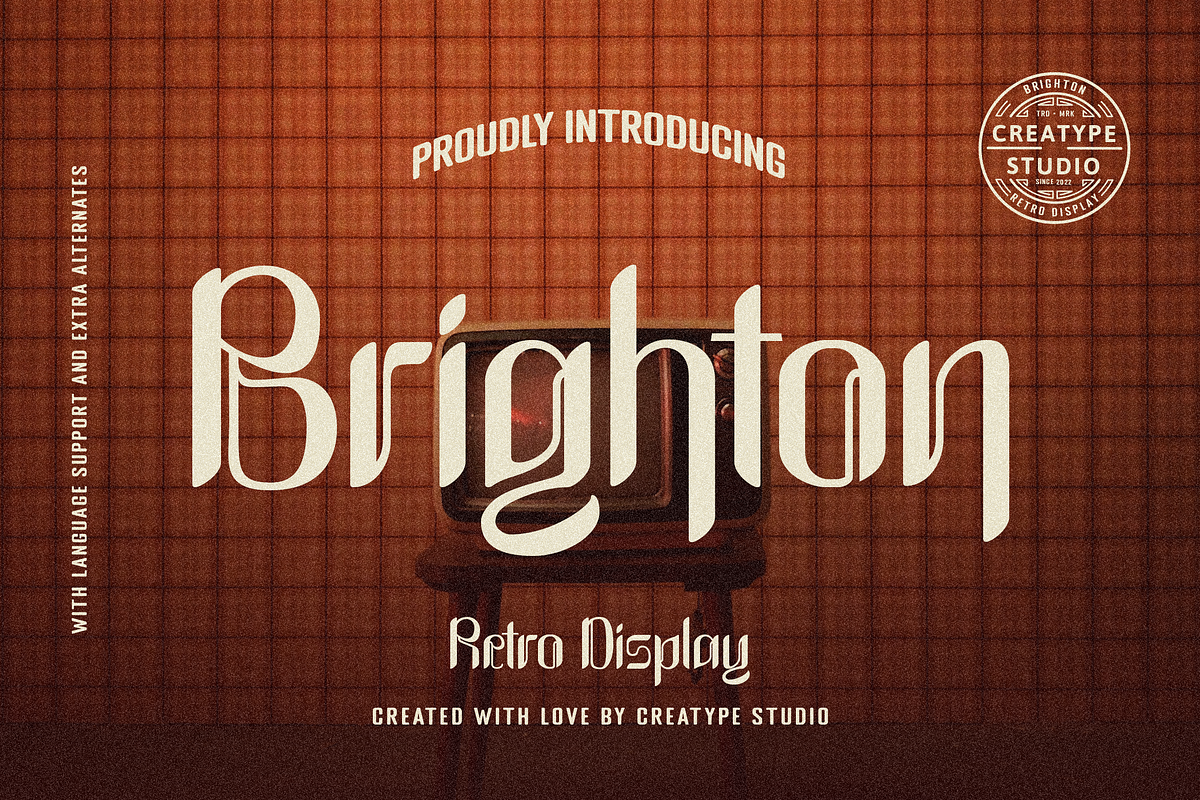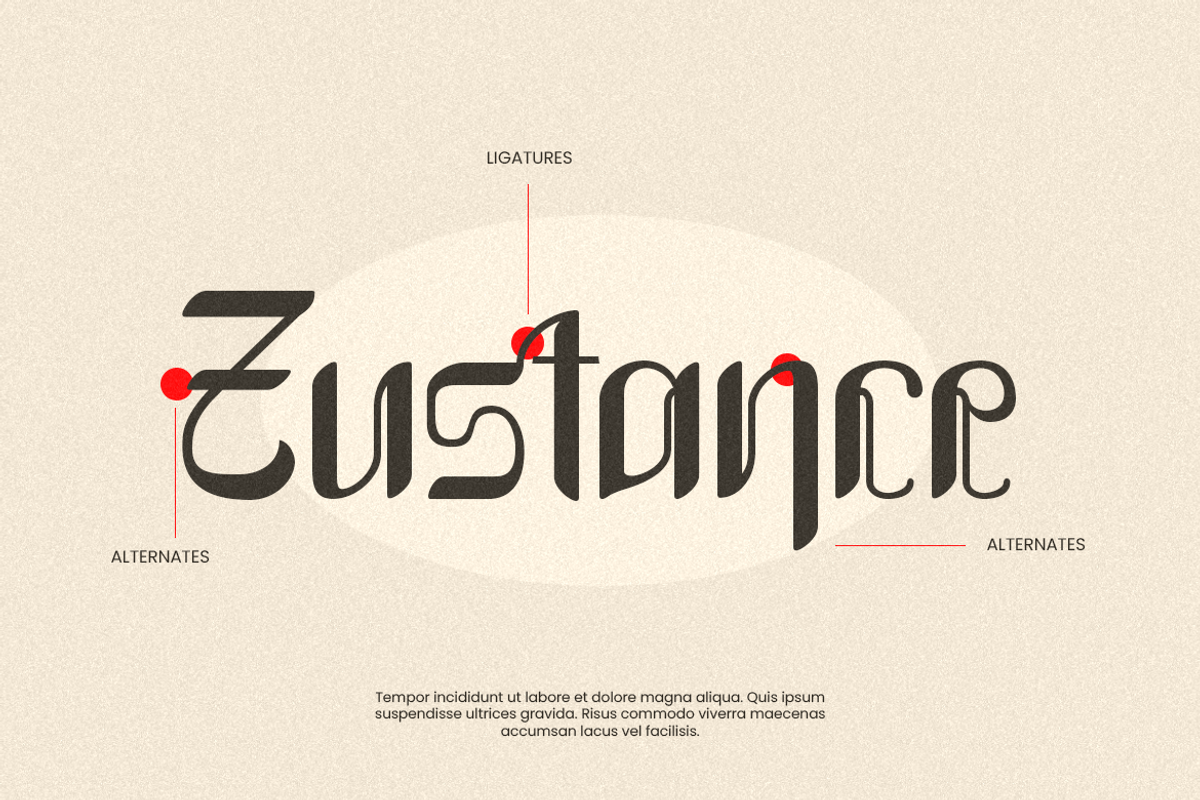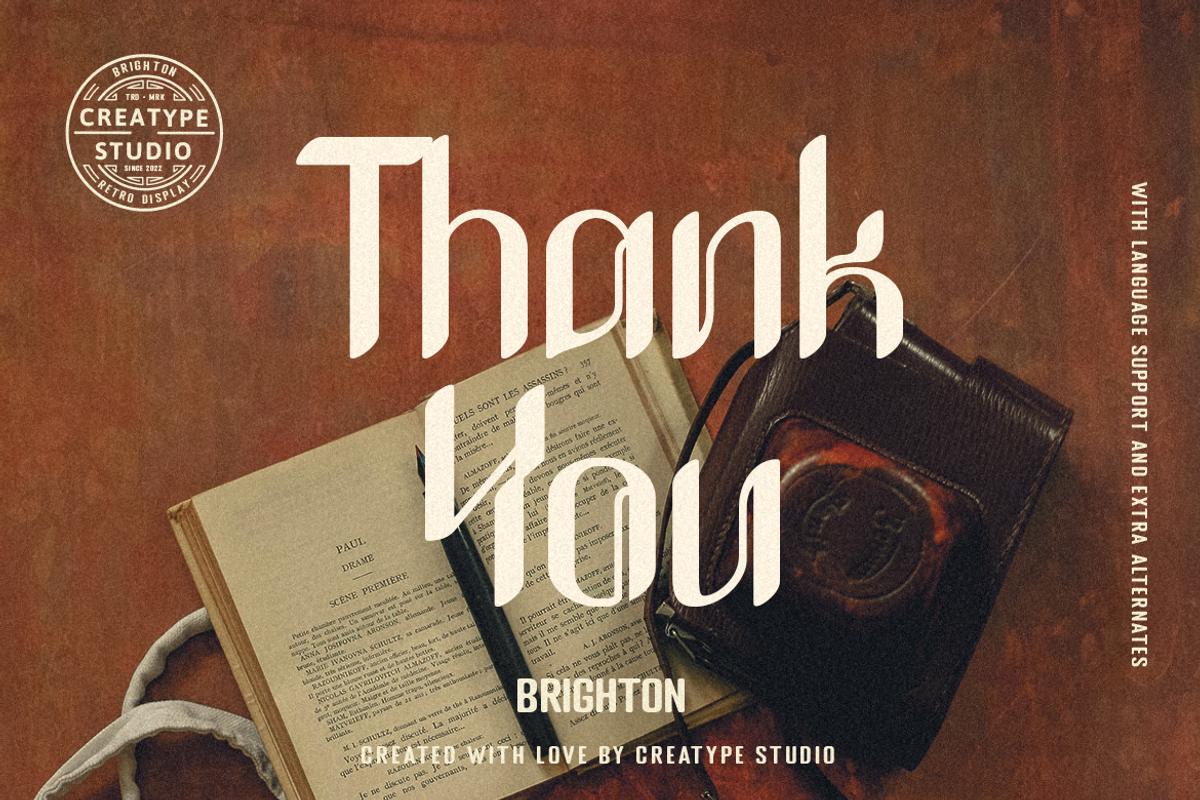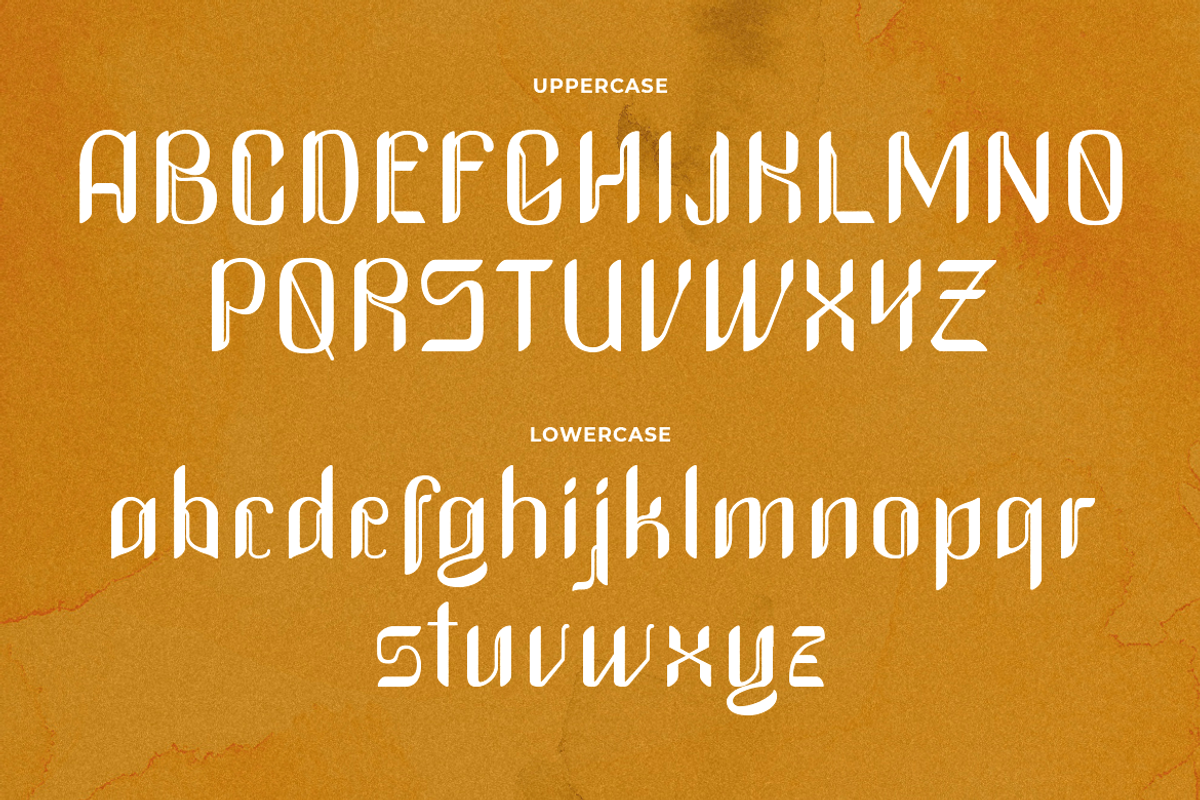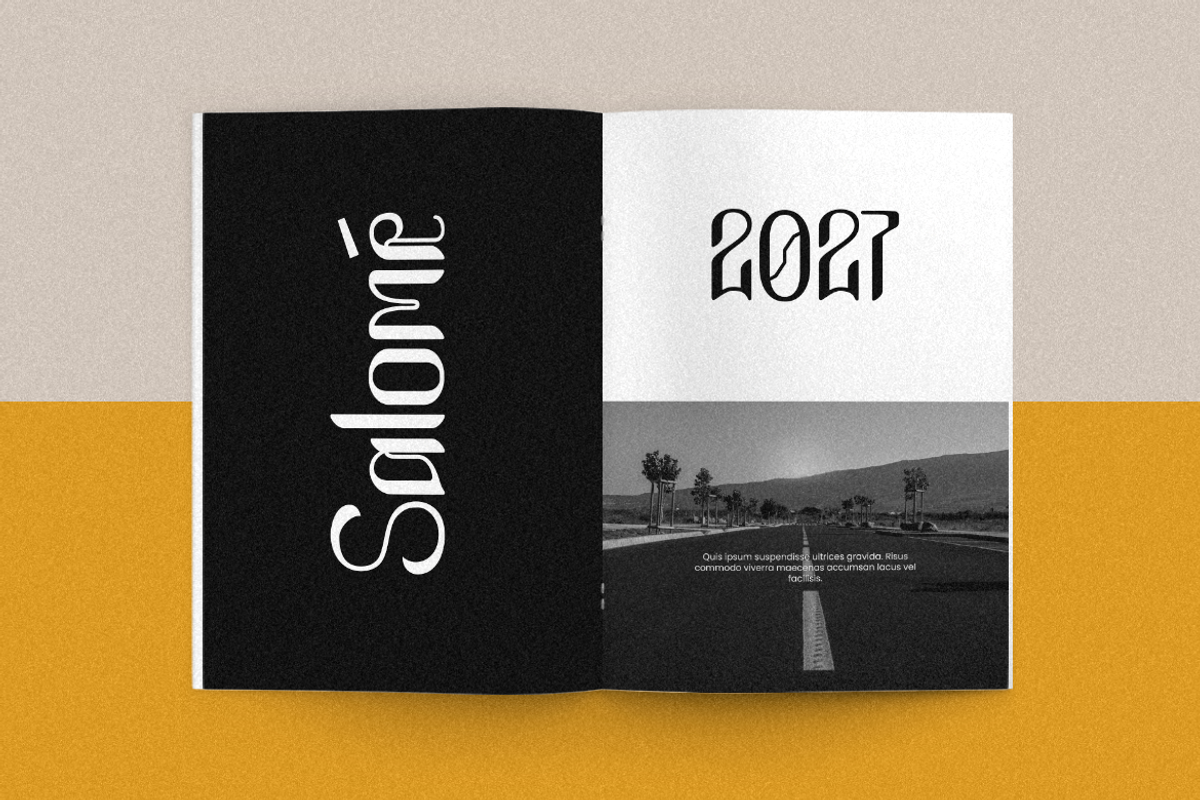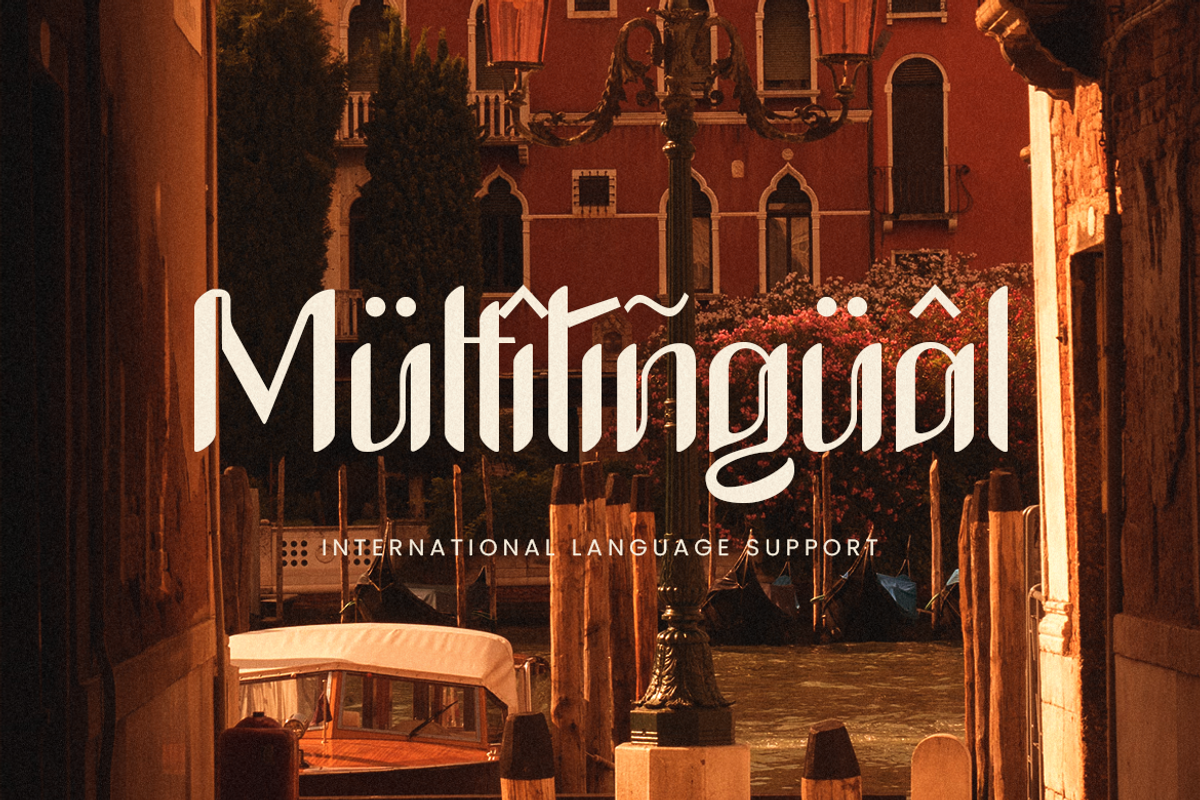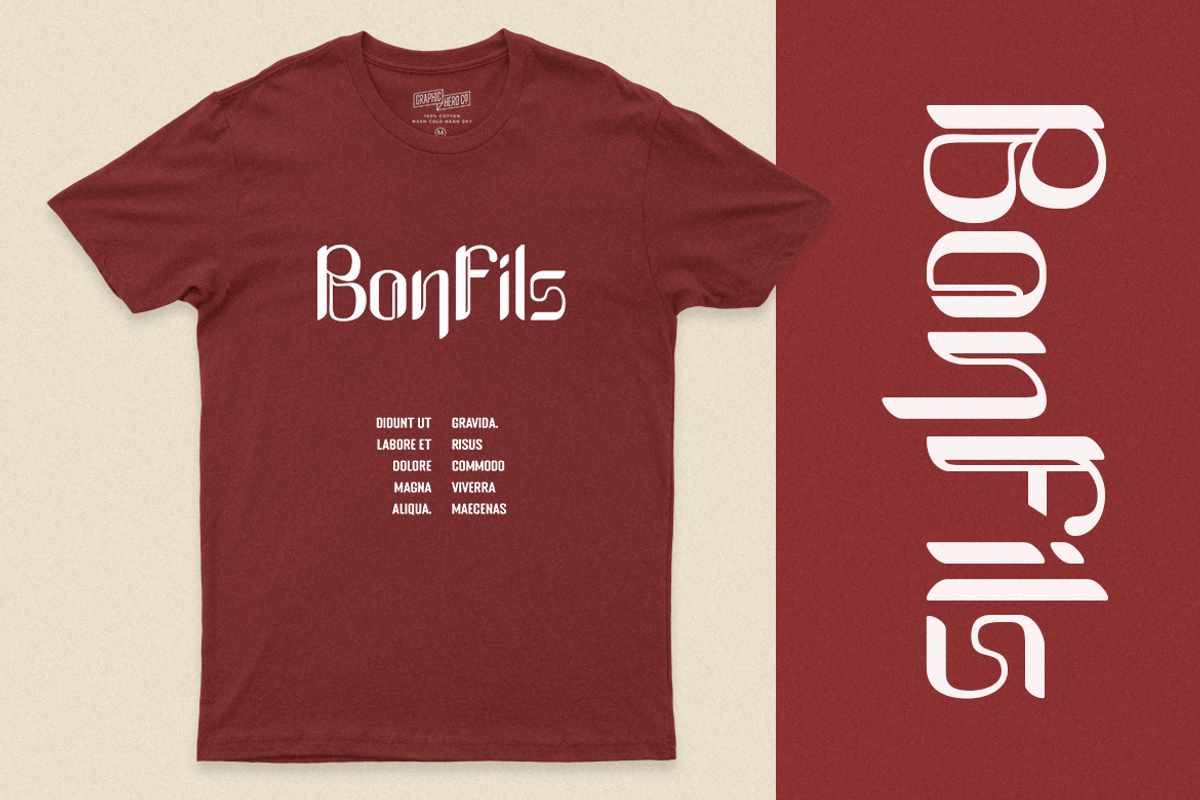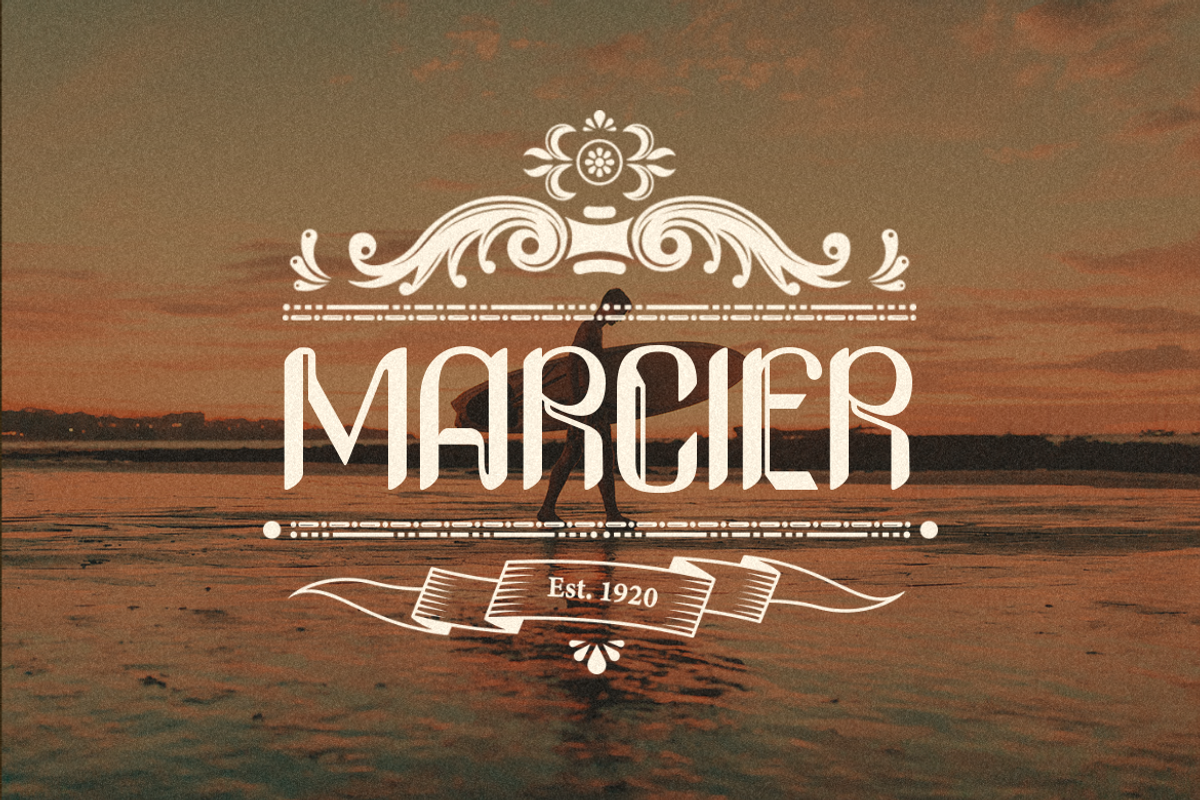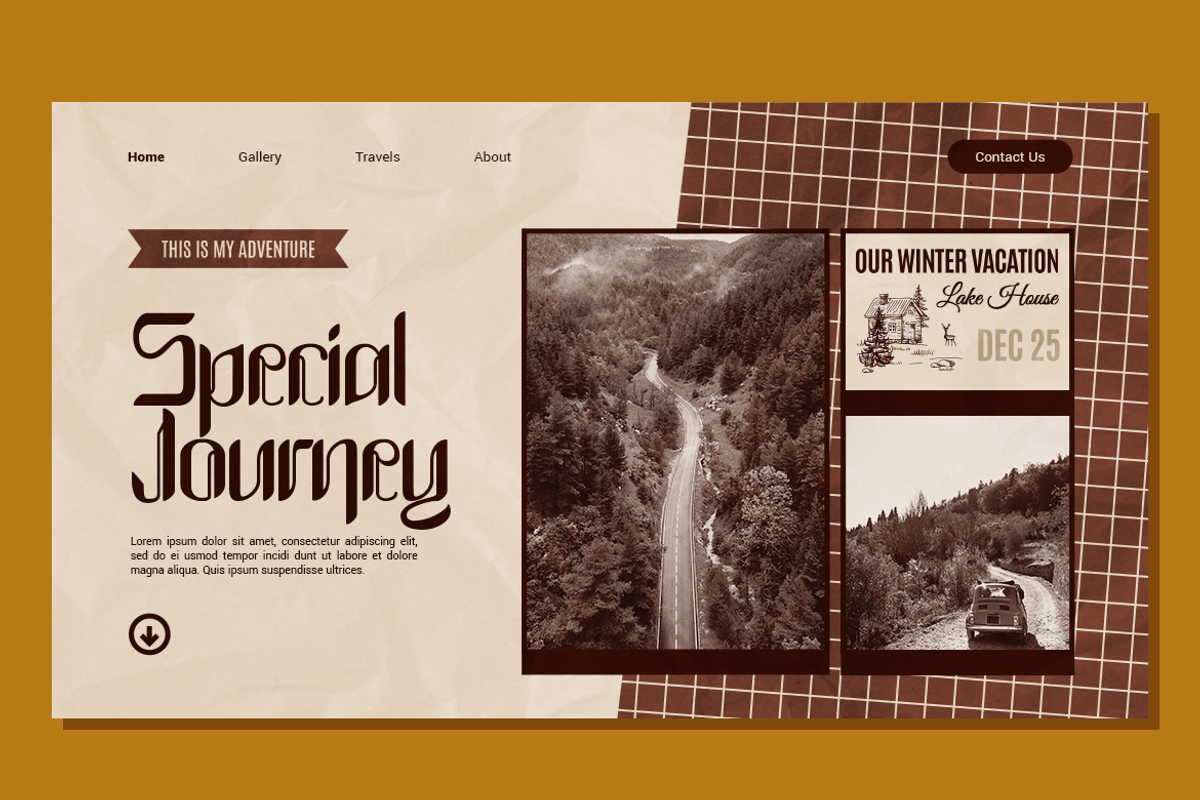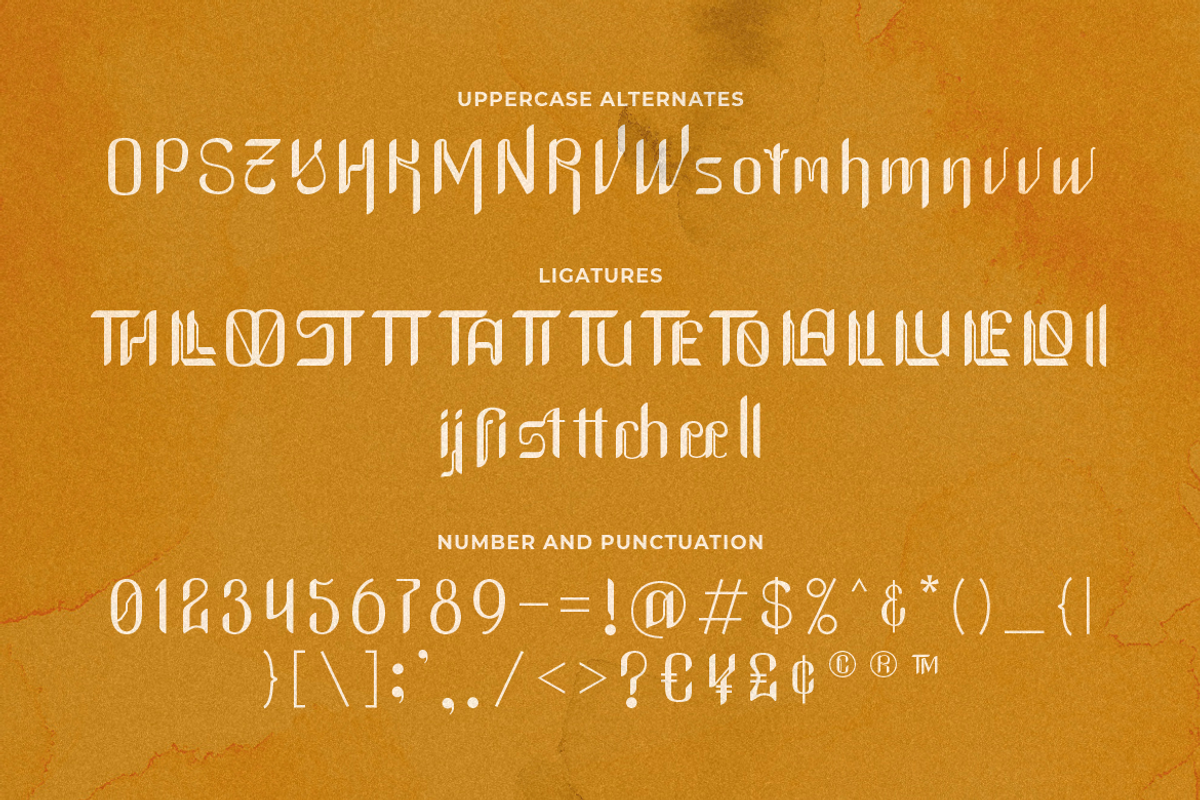
Brighton Retro Display
Brighton is a Retro Display with a vintage and antique vibe. The special design on the alternates and ligatures creates an antique vibe to Brighton
Brighton is perfect for branding projects, logo, wedding designs, social media posts, advertisements, product packaging, product designs, label, photography, watermark, invitation, stationery and any projects that need handwriting taste.
- Ligature & Alternate